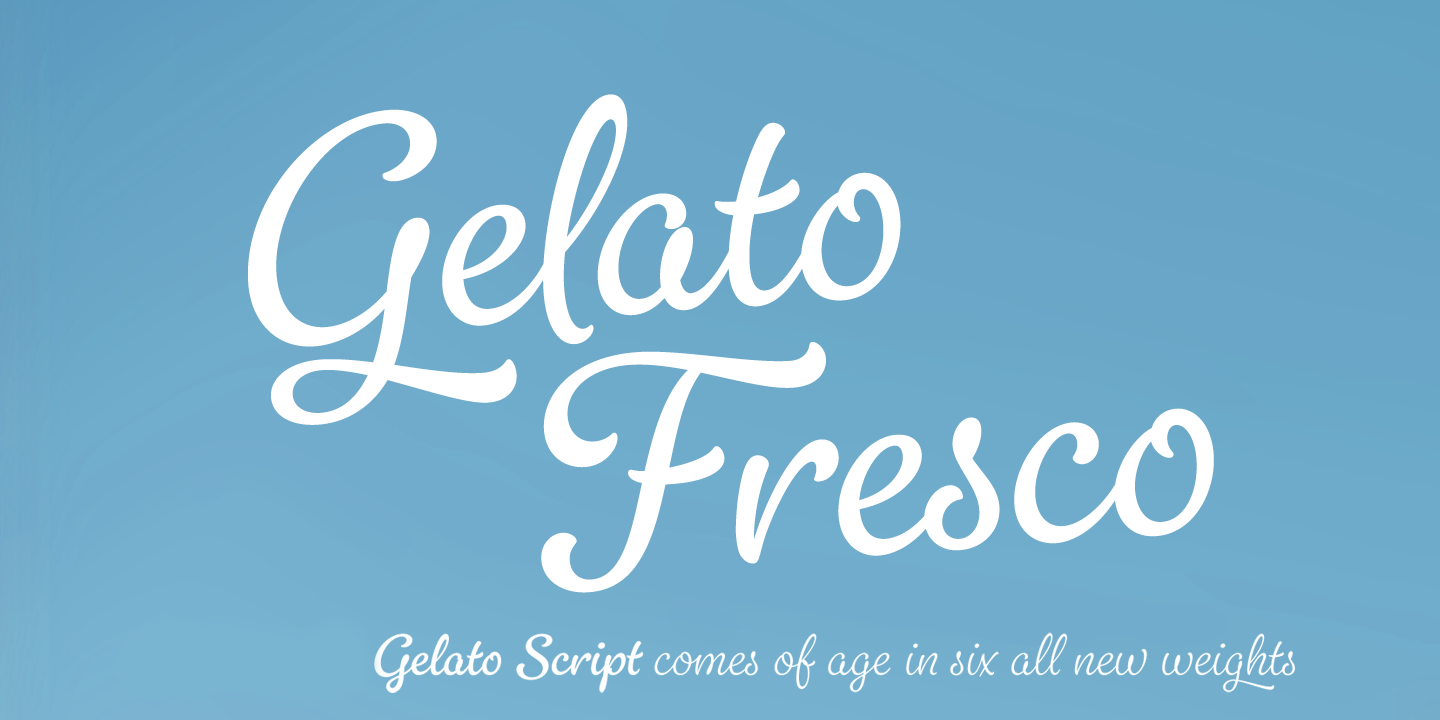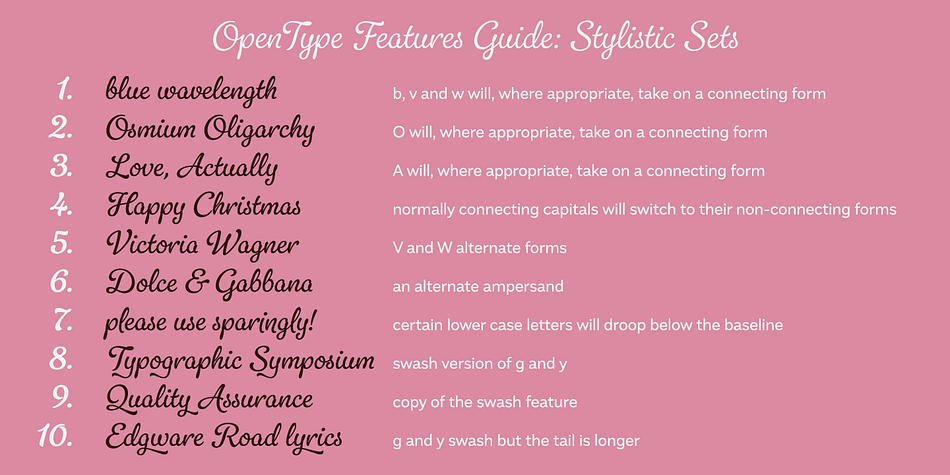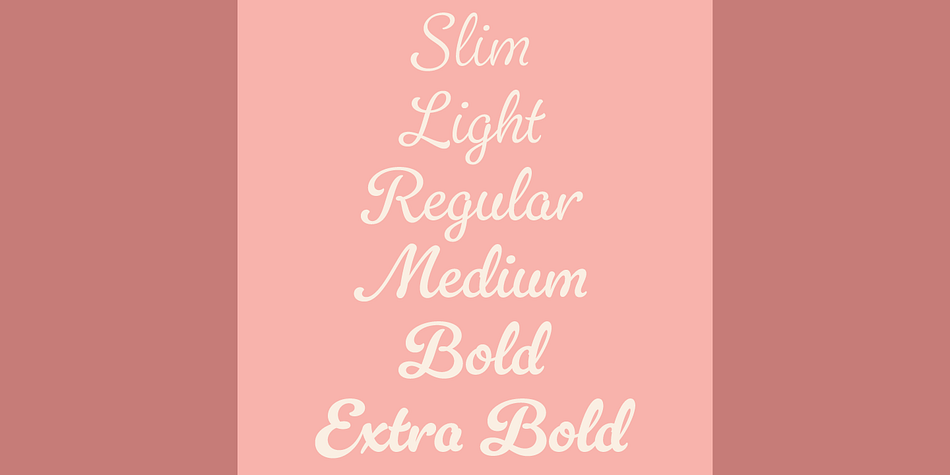
Gelato Fresco
Designed by Dave Rowland, Gelato Fresco is a brush script and script font family. This typeface has six styles and was published by Schizotype Fonts.
Gelato Fresco represents a coming-of-age of a script font that started life in 2011 as the popular Gelato Script. In 2018, Gelato Luxe sought to improve on Gelato Script, and now, with the addition of extra weights for the first time, Gelato Fresco takes the baton.
What was always a typographically sophisticated and versatile font has reached new levels of usability as it becomes a family. In its previous incarnations, the typeface has graced everything from designer handbags to prime-time TV shows; food blogs to wedding invitations; glossy magazines to (not so imaginatively!) ice cream shops. I can’t wait to see what this even more versatile version gets used for.